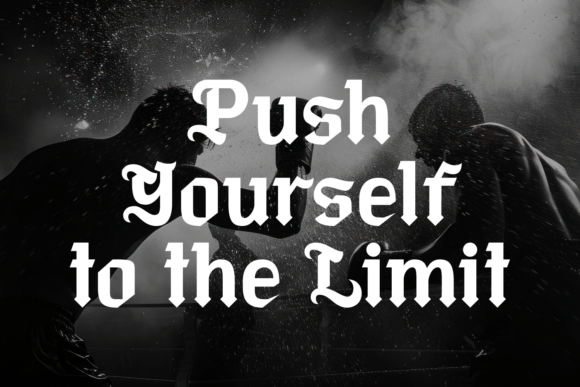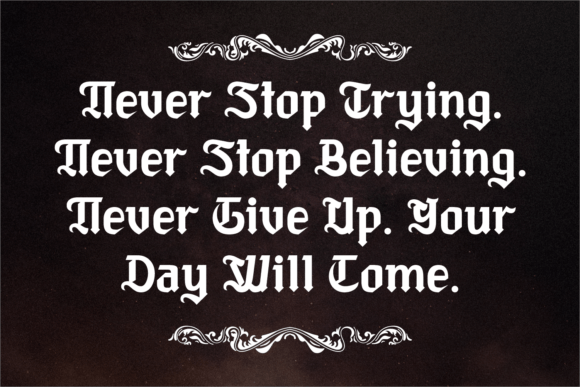
Introduction to Roasty Font
Have you ever stared at a blank canvas, struggling to find the perfect font to bring your creative project to life? For designers, it’s a moment of truth – the difference between a great design and a mediocre one. That’s where Roasty Font comes in – a bold and beautiful blackletter typeface that’s about to revolutionize your design workflow.
Imagine a font that effortlessly blends the spirit of medieval Old English style with a sharp contemporary edge. That’s exactly what you get with Roasty Font – a high-quality design resource that’s perfect for conveying strength, tradition, and a touch of modern flair. With its thick and well-defined letters, Roasty Font is ideal for headlines, tattoos, logos, or any design that requires a bold visual statement.
Key Features of Roasty Font
- High-quality design resource ideal for creative projects, including logos, branding, and advertising materials.
- Unique, hand-crafted design with a transparent background, making it easy to place over any image or color scheme.
- Includes a wide range of characters, including uppercase and lowercase letters, numbers, and punctuation marks, ensuring comprehensive coverage for any creative project.
- Designed to be versatile and suitable for a variety of design styles, from modern and minimalist to bold and playful.
Honest Review: Roasty Font
As a designer, I’m always on the lookout for high-quality design resources that can elevate my creative projects. I recently stumbled upon Roasty Font, and I’m excited to share my honest review with you.
Here are some things that work well: ✨ The font is beautifully designed, with a unique blend of modern and vintage elements that make it perfect for a wide range of creative projects. The transparent background is also a nice touch, allowing for easy integration with other design elements.
Here are some potential limitations: ⚠️ While the font is highly customizable, it may not be suitable for all types of projects. Additionally, the lack of a comprehensive documentation or tutorial may make it difficult for some designers to get started.
- Perfect for modern and vintage-inspired designs
Roasty Font
The Roasty Font is a high-quality design resource ideal for creative projects. It features a transparent background, making it easy to overlay on any image or design.
Tips for Getting the Most Out of the Roasty Font
Experiment with different font sizes and styles to achieve the desired effect. Combine the Roasty Font with other design elements, such as images or graphics, to create visually appealing designs.
The Roasty Font is suitable for various creative projects, including social media graphics, posters, presentations, and documents. It’s a great resource for designers, marketers, and anyone looking to add a unique touch to their designs.
Alternatives to Roasty Font
Montserrat is a high-quality sans-serif font ideal for creative projects that require a modern and clean look. It’s perfect for use on a transparent background and can be easily customized for various design applications. Montserrat is a free download and is widely used in digital design.
Montserrat compares to Roasty Font in its clean and modern aesthetic, but with a more geometric feel. While Roasty Font is often used for its nostalgic and vintage vibe, Montserrat is better suited for contemporary designs.